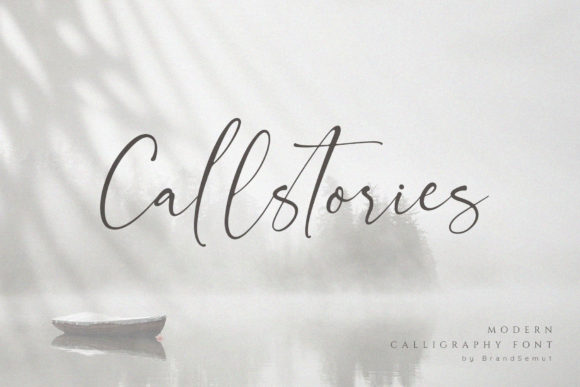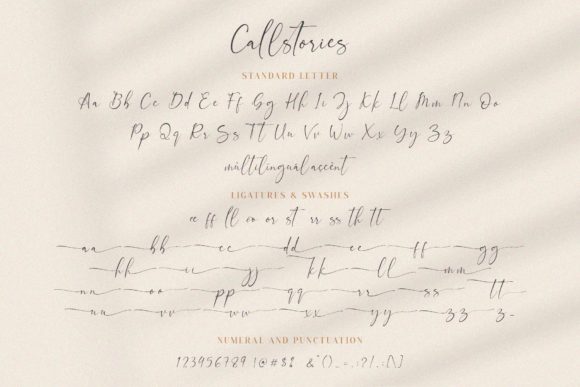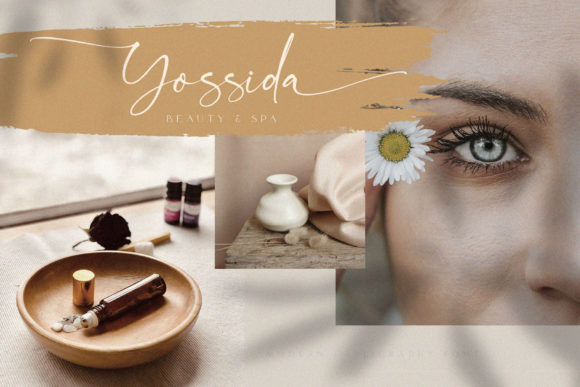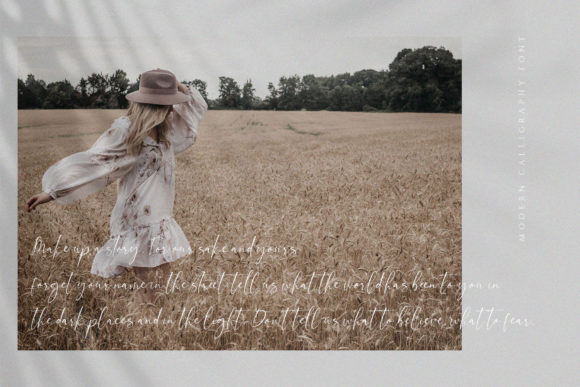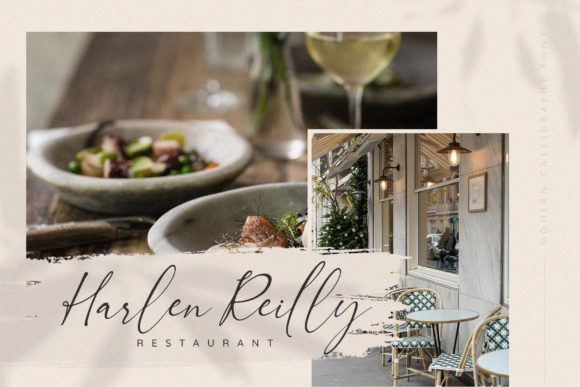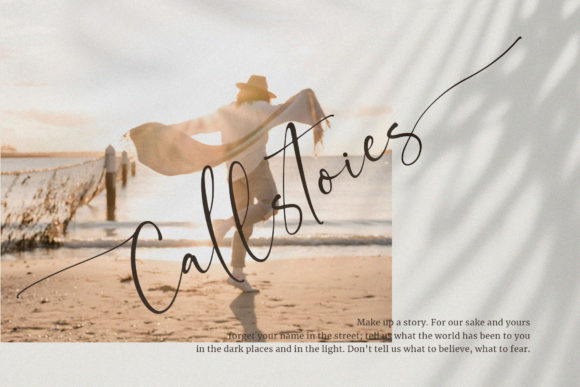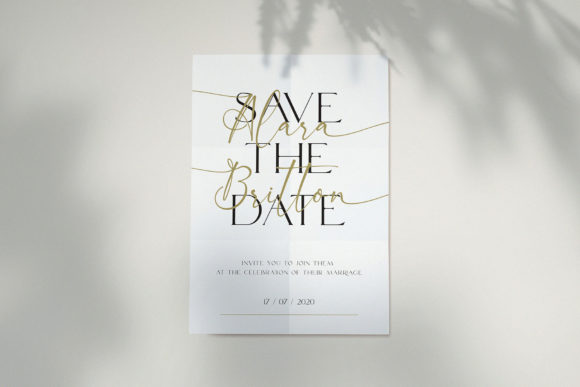
Callstories Font
About Callstories Font
Callstories feels modern and elegant. This amazing script font is inspired by classic typography and brings its own unique style to any design project.
It will elevate a wide range of design projects to the highest level, be it branding, headings, wedding designs, invitations, signatures, logos, labels, and much more!